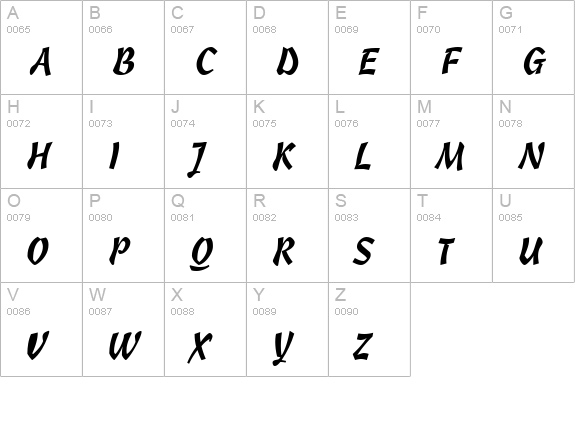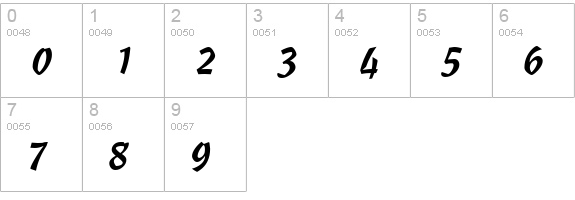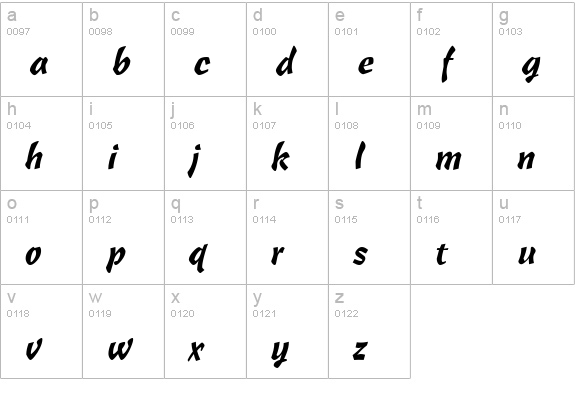
ChurchScript Font Details
ChurchScript font is a beautiful and elegant typeface that exudes a sense of traditional charm and sophistication. Its intricate details and graceful curves make it perfect for adding a touch of class to your designs. Whether you're working on invitations, greeting cards, or branding materials, ChurchScript font will elevate your projects to a whole new level. The best part about ChurchScript font is that it is completely free! You can easily download it from FontsMarket.com and start using it in your projects right away. With its timeless appeal and versatility, ChurchScript font is a must-have in any designer's toolkit. Add a touch of elegance to your work with ChurchScript font today!